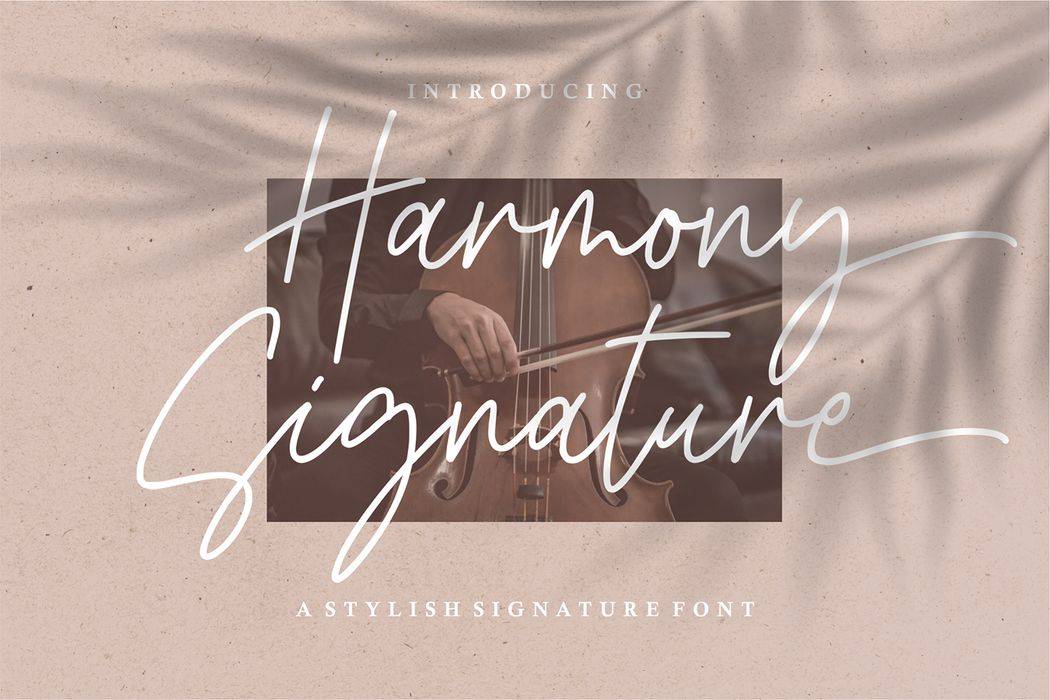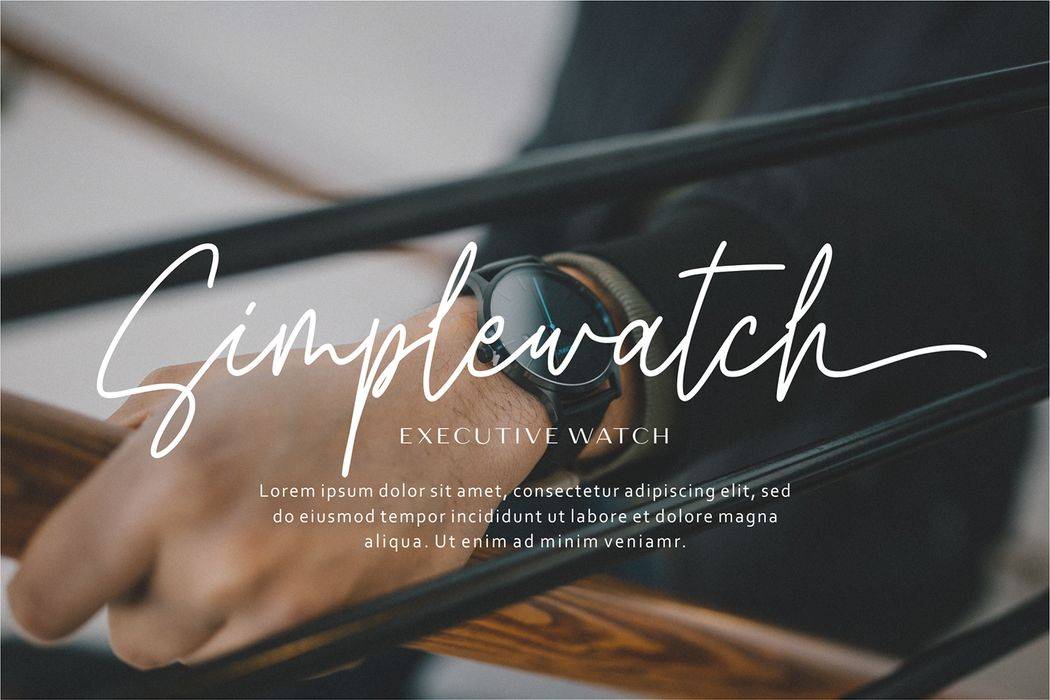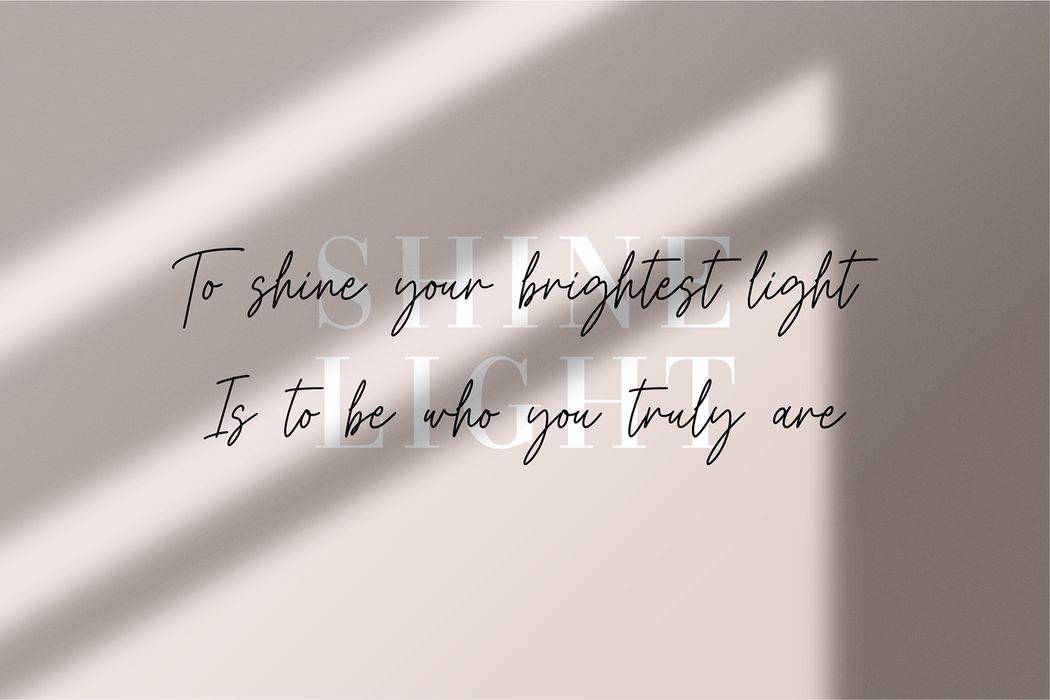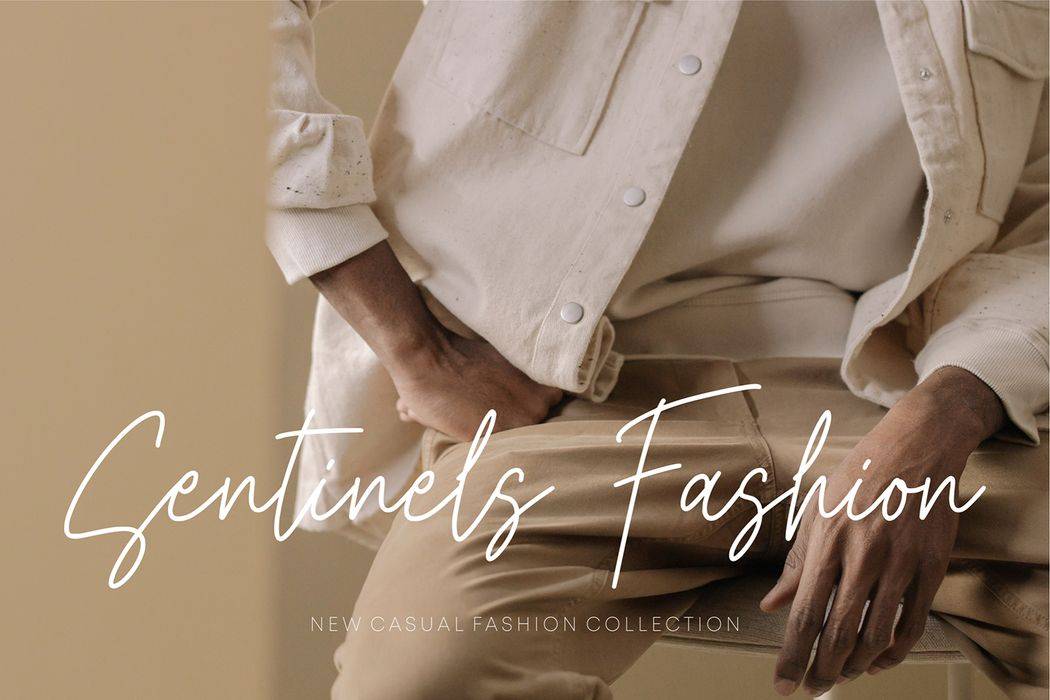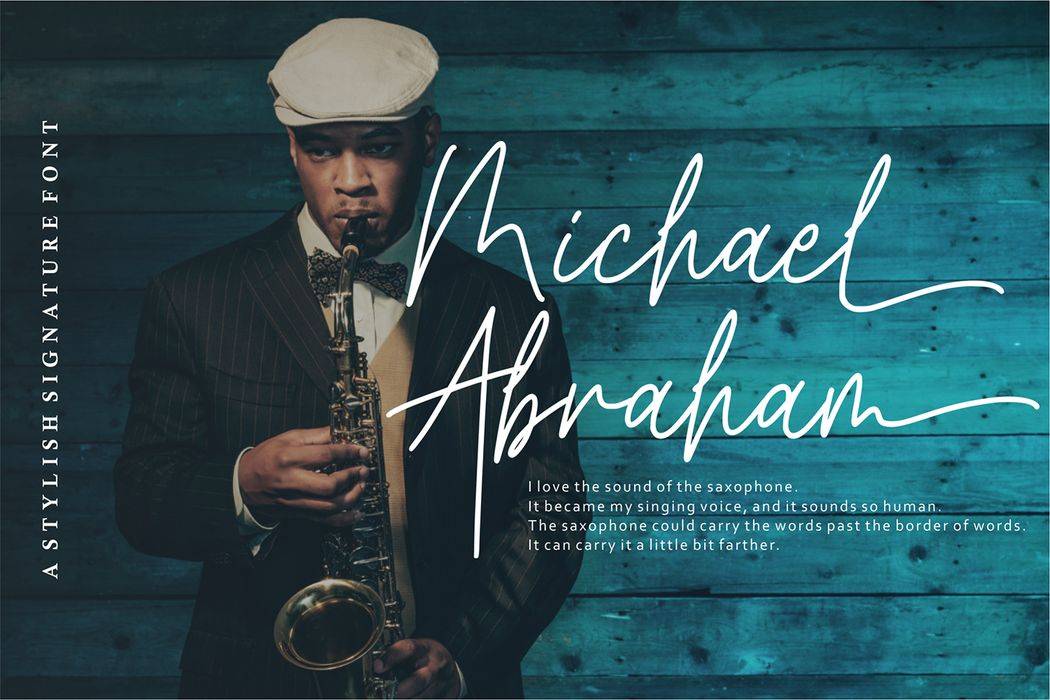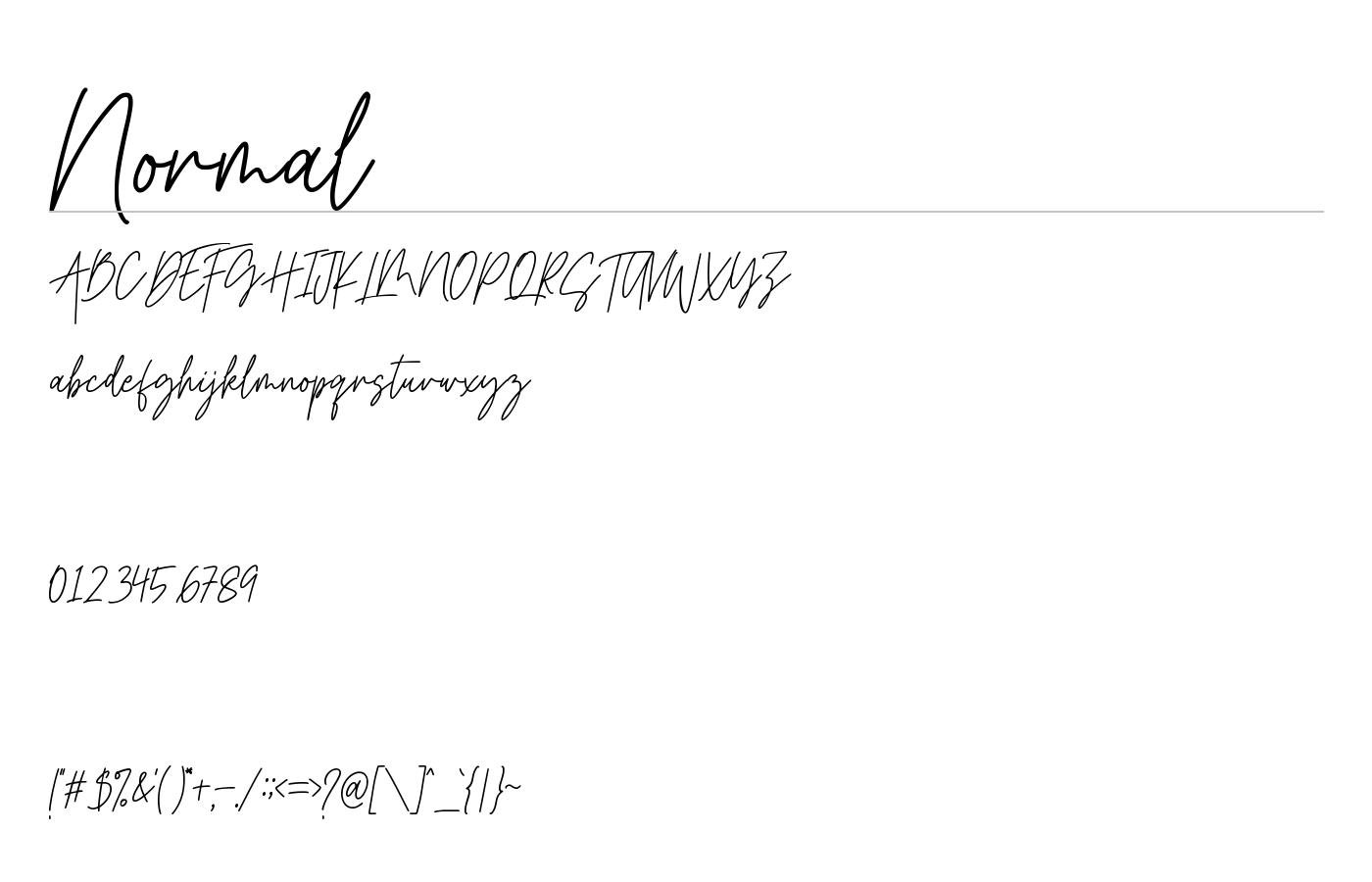
Harmony Signature Font is a delicate and elegant script typeface that mimics natural, flowing handwriting with thin, smooth strokes and a graceful, airy appearance. Its stylish, slightly slanted letterforms create a personal and sophisticated feel, making it ideal for branding, invitations, and creative projects that seek a refined, intimate touch. This font works beautifully in logos, fashion, and editorial designs where a light, modern signature style adds charm and personality.
Harmony Signature Font
About Harmony Signature Font